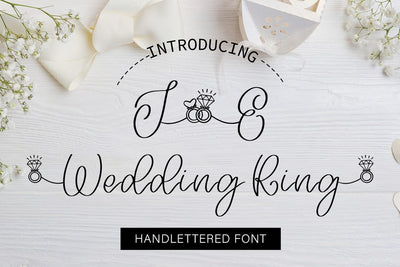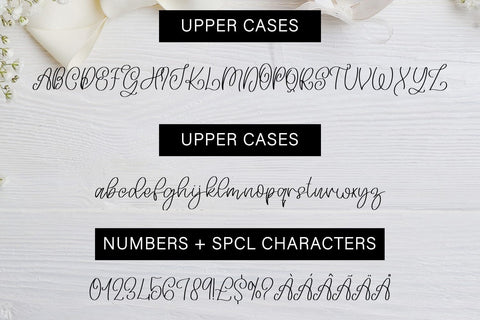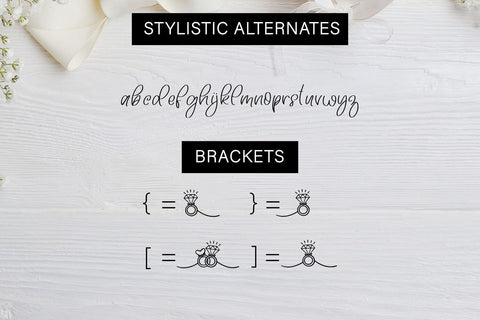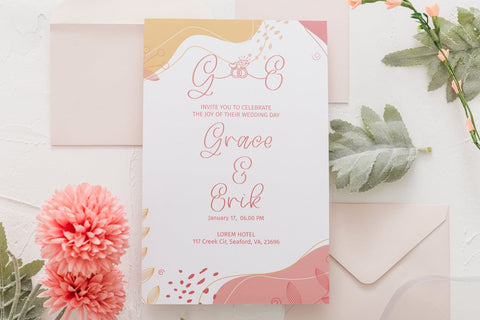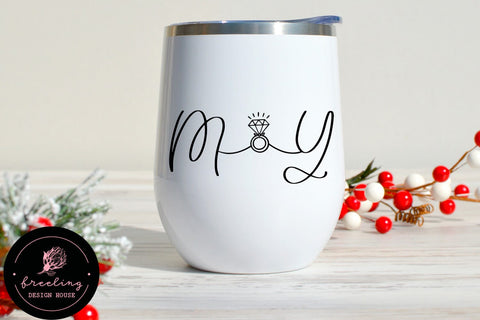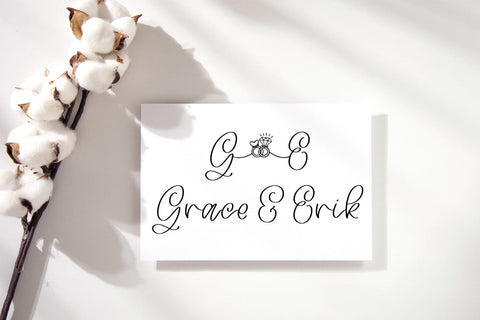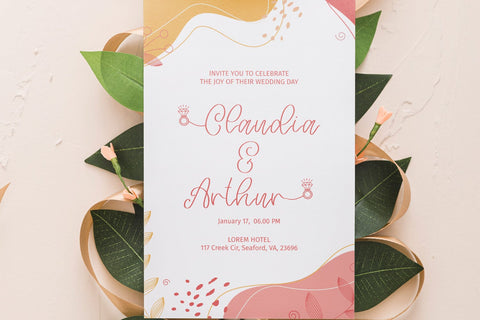
Wedding Ring - Handwritten Script Font
Wedding Ring - Handwritten Script Font With Wedding Rings To Attach To Your Letters
Introducing "Wedding Ring," an exquisite handwritten script font that beautifully captures the essence of love and matrimony. With two variations of delicate wedding rings to adorn the beginning or end of each letter, this font adds a touch of romance to your designs. Moreover, it offers two combinations of intertwined rings, transforming two letters into a stunning monogram symbolizing unity and eternal love. Let "Wedding Ring" be the perfect companion to celebrate your special moments with elegance and charm.
- Wedding Ring- Comes with Uppercase A-Z and lowercase a-z letters, 0-9 numbers, stylistic alternates, limited punctuation and supports Western European Languages